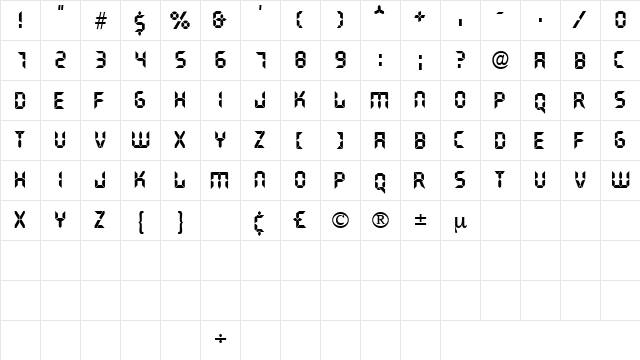
LCDDisplayCapsSSK Regular Font Preview
LCDDisplayCapsSSK Regular
Design Context for LCDDisplayCapsSSK Typeface
LCDDisplayCapsSSK is built around its visual character rather than neutral utility — its distinctive forms are designed to make an impression at display sizes.
Font Pairing: Pair with a clean neutral sans-serif for body copy to let LCDDisplayCapsSSK's character lead without overwhelming the composition.
Pro Tip: Use LCDDisplayCapsSSK exclusively at display sizes — it was designed to be seen, not read at length. Let a neutral companion handle body copy.